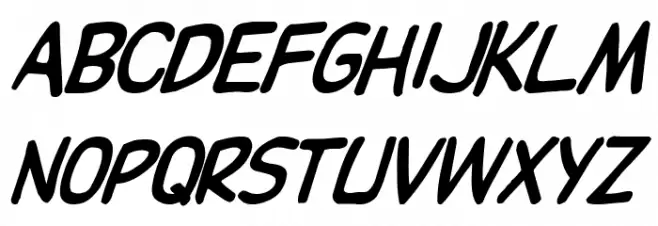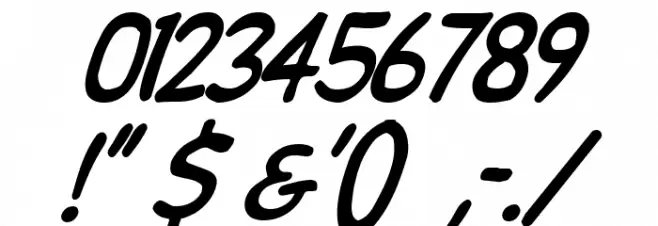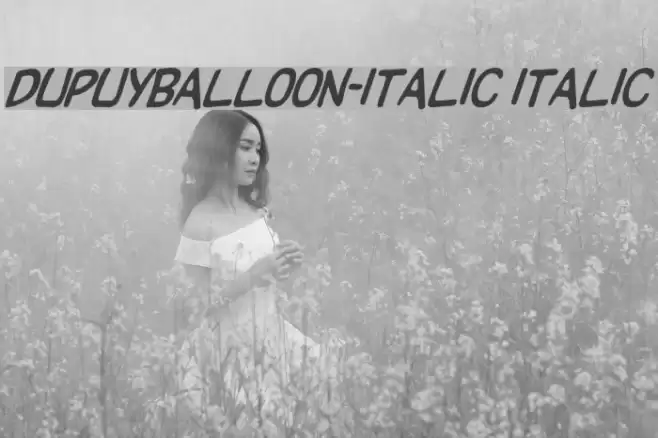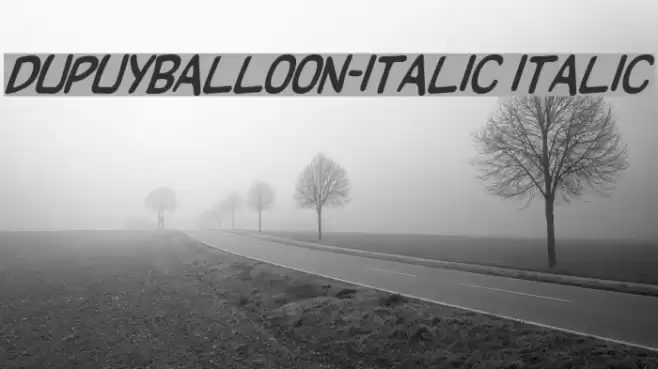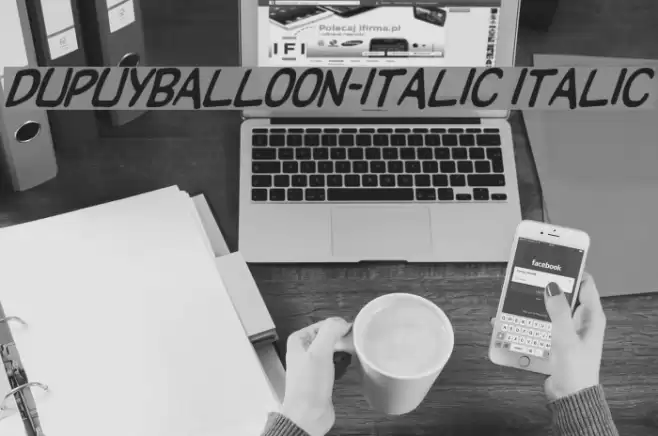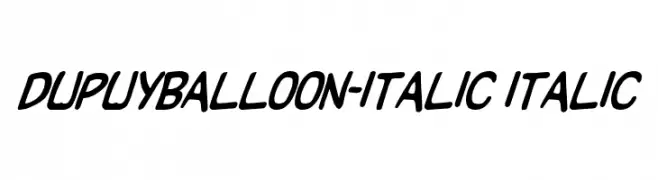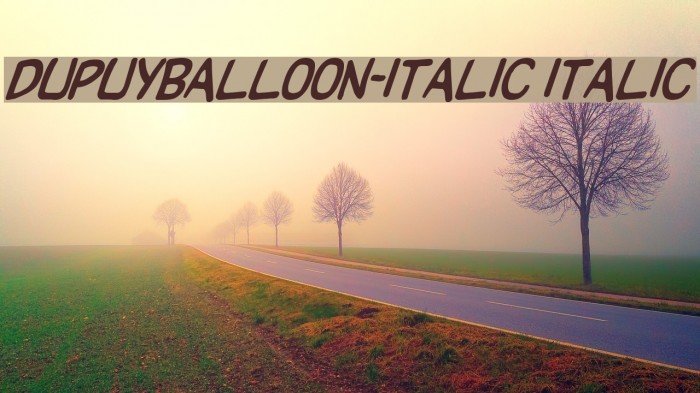
DupuyBALloon-Italic Italic
This font features a playful and dynamic style with a handwritten appearance. The letters are slanted, giving it an italicized look, which adds to its energetic and informal feel. The strokes are smooth and rounded, providing a sense of fluidity and movement. The characters are bold, making them stand out, yet the overall design maintains a casual and approachable vibe. The spacing between characters is normal, ensuring readability while maintaining its lively character. This font is ideal for projects that require a personal touch or a fun, engaging aesthetic.
A playful, italicized handwritten font with bold, smooth strokes.
- Proposed Projects: Great for greeting cards, children's books, playful branding, and social media graphics.
- Overall Style: Decorative
- Use Case: Headlines, Logos, Informal Text